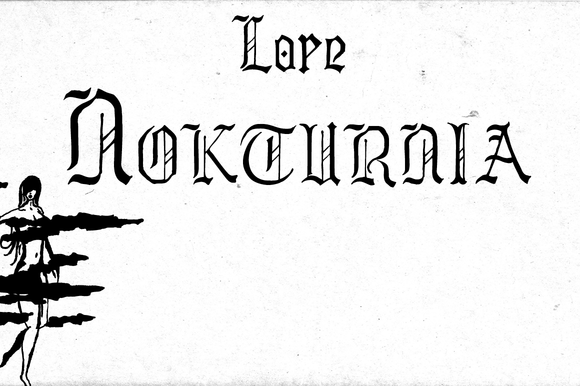
In a world where creativity reigns supreme, where words take flight and visual wonders are born, there exists a font that captivates the senses and unlocks the boundless realms of imagination: Lore Nokturnia, the blackletter font that conjures a symphony of emotions and elevates your designs to new heights.
Immerse yourself in the mystical allure of Lore Nokturnia, a font family that draws inspiration from medieval manuscripts and ancient runes. Each letter is a work of art, meticulously crafted with intricate details that evoke a sense of history and magic. The flowing lines of its blackletter style dance across the page, inviting your readers on an enchanting journey through time and space.
With Lore Nokturnia, your words become a spellbinding tapestry, weaving tales of mystery, adventure, and intrigue. Whether you're crafting logos that demand attention, designing invitations that exude elegance, or creating web pages that transport users to another world, this font is your muse, your faithful companion on the path to creative greatness.
Indulge in the versatility of Lore Nokturnia, a font that adapts seamlessly to your every whim and desire. Use it to craft stunning headlines that command attention, body text that flows with grace, or captivating social media posts that ignite imaginations. From the grandest of projects to the most intimate of expressions, Lore Nokturnia effortlessly elevates your creations, leaving an indelible mark on the hearts and minds of your audience.
Join the ranks of creative visionaries who have harnessed the power of Lore Nokturnia to manifest their dreams. Witness the transformation as ordinary words morph into captivating narratives, as mundane designs metamorphose into masterpieces. With Lore Nokturnia as your weapon of choice, you'll conquer the creative realm, leaving a trail of awe-inspiring designs in your wake.